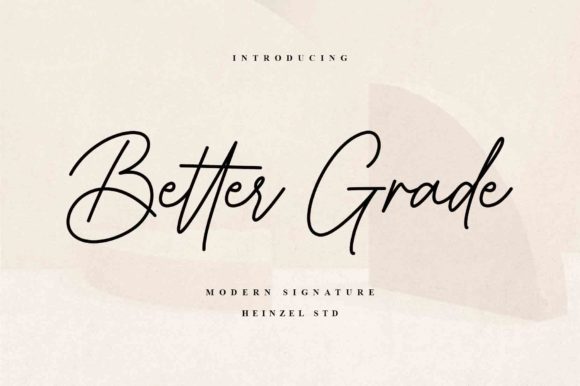
Step into the world of elegance and sophistication with Better Grade Font, the captivating script font that will transform your creative visions into masterpieces. Experience the allure of its delicate strokes, meticulously crafted to evoke a sense of timeless beauty. This exquisite font is the brainchild of Heinzel Std., a visionary artist who poured their heart and soul into creating a font that speaks to the soul.
With Better Grade Font, you hold the key to unlock a world of design possibilities. Its thin and graceful lines dance across the page, adding a touch of refinement to every project. Whether you're crafting logos, invitations, social media posts, or any other design project, Better Grade Font will elevate your work to new heights.
Immerse yourself in the charm of Better Grade Font's distinct and timeless style. Its meticulously crafted characters exude a sense of elegance that will captivate your audience and leave a lasting impression. Whether you're designing for a wedding invitation, a fashion magazine, or a corporate presentation, Better Grade Font will add a touch of sophistication and professionalism.
Unleash your creativity and let Better Grade Font guide you on a journey of artistic expression. Its versatility knows no bounds, making it the perfect choice for a wide range of design projects. From whimsical illustrations to heartfelt love letters, Better Grade Font will bring your words and ideas to life with its enchanting allure.
Don't settle for ordinary fonts that fail to inspire. Embrace the beauty and grace of Better Grade Font, and elevate your designs to new heights. Its timeless style and captivating charm will leave an indelible mark on your audience, ensuring that your message is conveyed with impact and elegance.